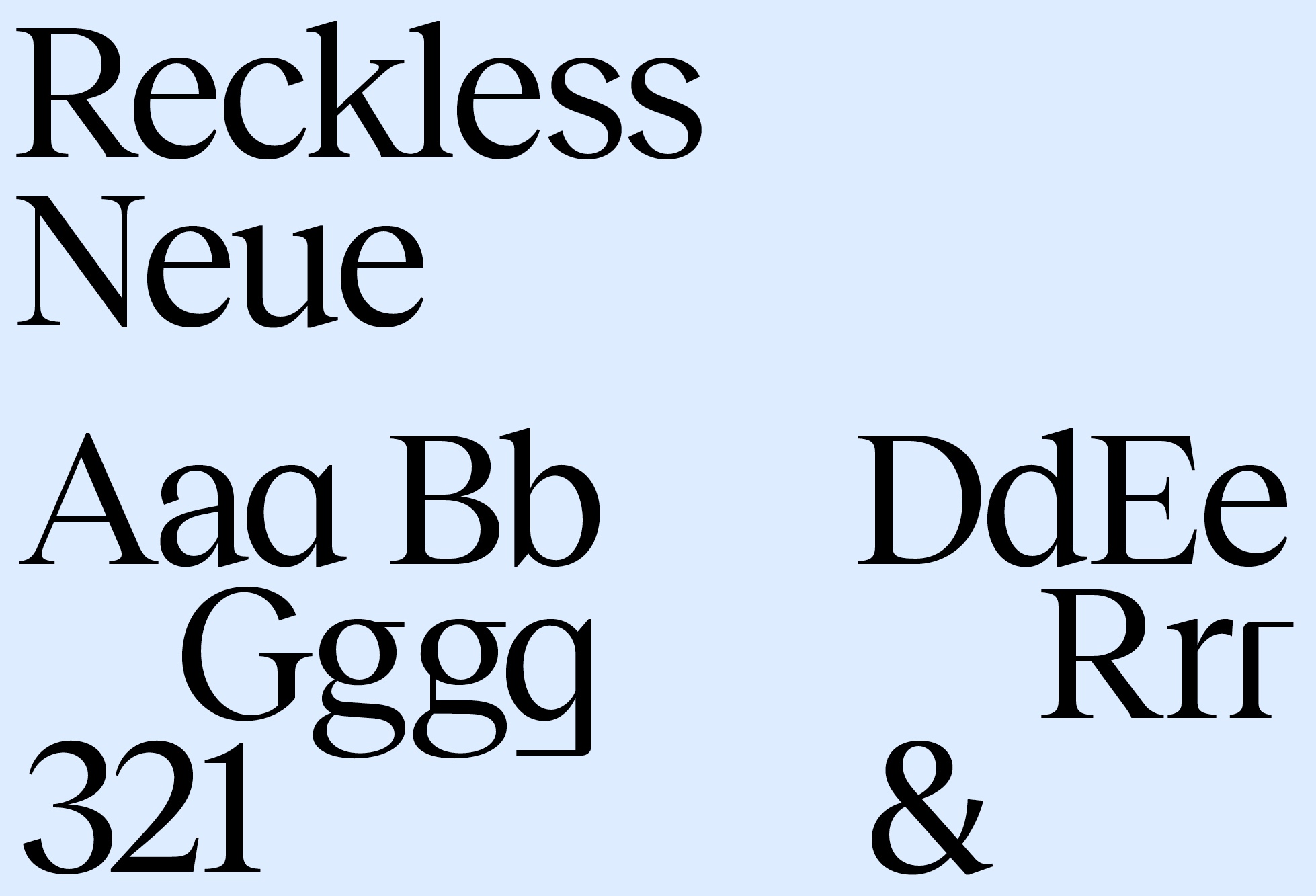
Reckless Neue Font
Reckless Neue Font is perfect for bold fashion editorials, cutting-edge advertising campaigns, rebellious youth brand identity, alternative music album covers, street art exhibitions, and edgy lifestyle magazines. Its daring character makes it ideal for skateboard companies, urban streetwear brands, tattoo studios, underground venues, extreme sports marketing, and any project requiring fearless attitude with contemporary edge and nonconformist appeal.
This font is exciting because it embodies the spirit of creative rebellion and artistic freedom while maintaining exceptional functionality and modern sophistication. The audacious letterforms challenge conventional typography rules, creating powerful visual statements that command attention and inspire audiences to break boundaries, think differently, and embrace their individual creative expression without compromise or hesitation.
The Reckless Neue Font family typically includes Regular, Bold, Light, and experimental variations with unconventional ligatures, alternative characters, and disruptive design elements that amplify its rebellious personality. This comprehensive collection empowers designers to create provocative brand systems that maintain consistent boldness while providing creative freedom for various applications requiring artistic courage and boundary-pushing aesthetics.